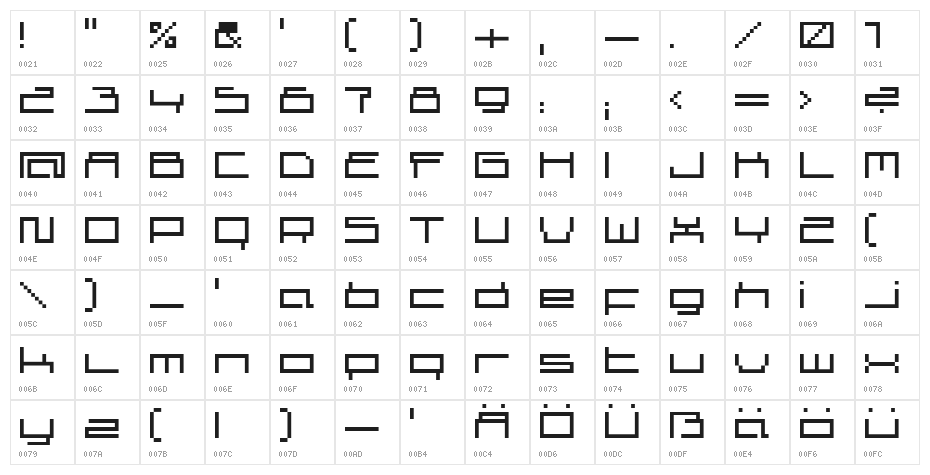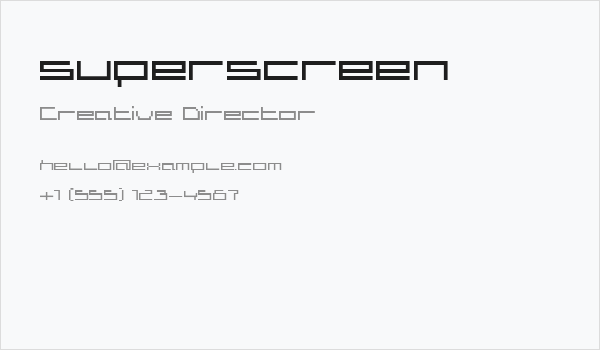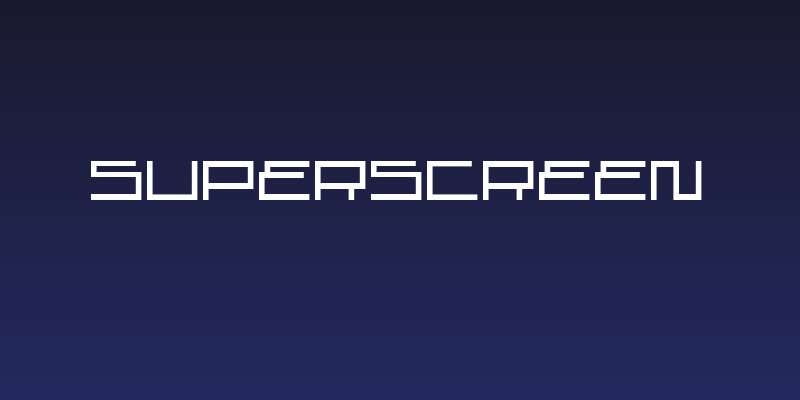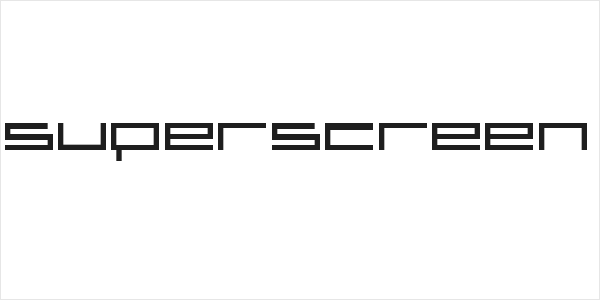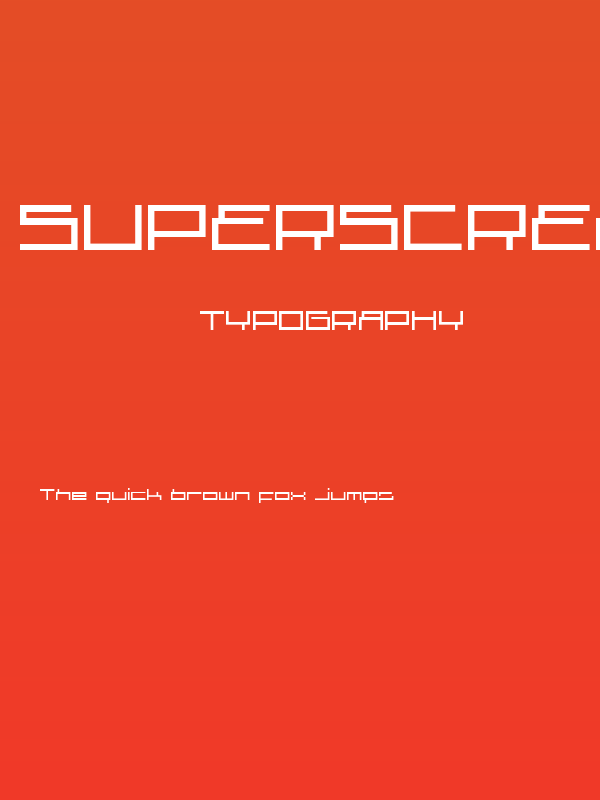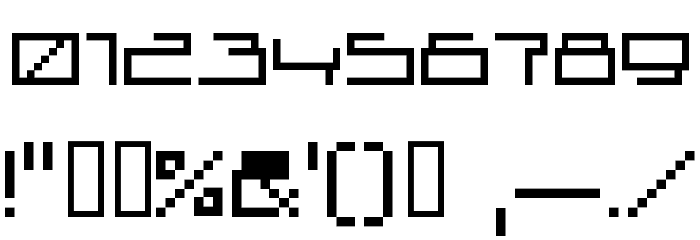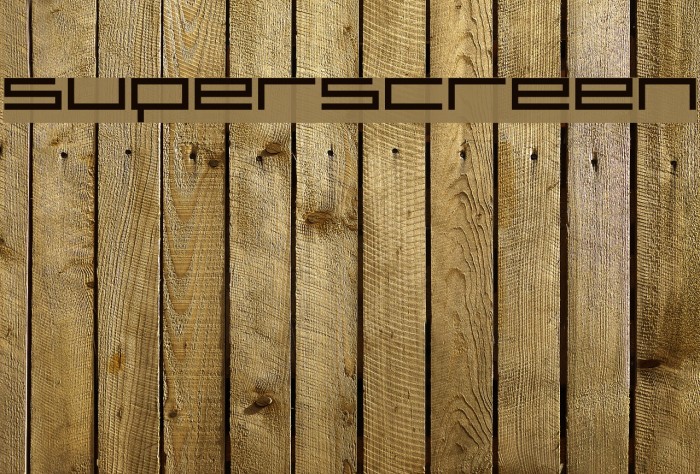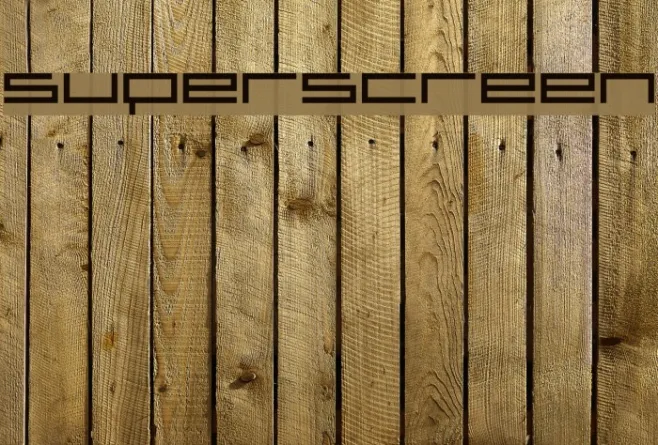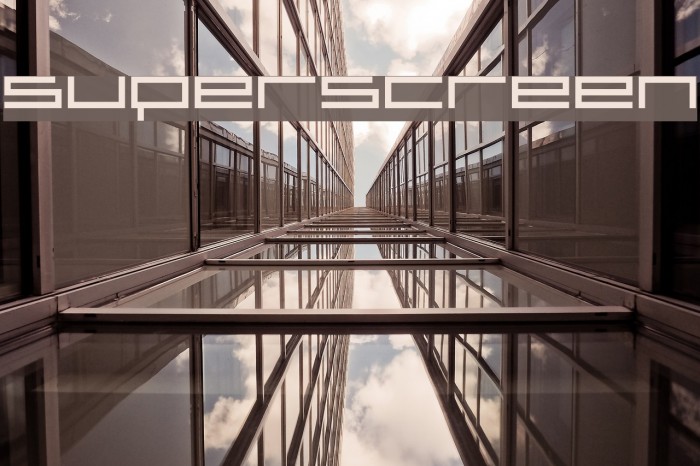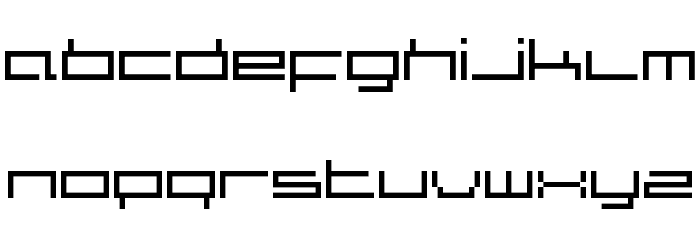
superscreen Font
superscreen Description
This font features a geometric, pixelated design reminiscent of early digital displays and video games. Each character is constructed with a grid-like precision, giving it a distinctly modern and technological feel. The uppercase and lowercase letters maintain a consistent height, contributing to a uniform appearance. The numerals and special characters follow the same structured pattern, ensuring readability and cohesion across all elements. The font's sharp angles and straight lines create a sense of order and clarity, making it ideal for digital interfaces or projects that require a futuristic aesthetic.
| Use Case | Headlines, Logos, Digital interfaces |
| Proposed Projects | Ideal for digital interfaces, video game design, tech branding, and futuristic-themed projects. |